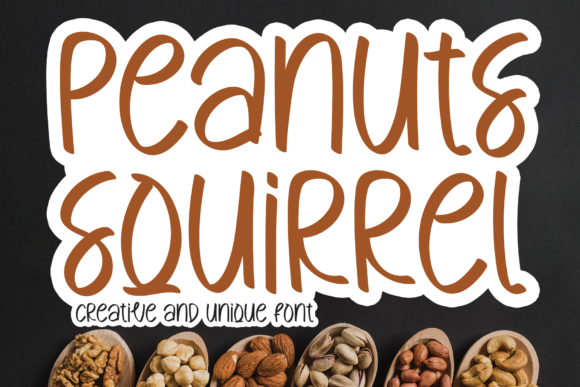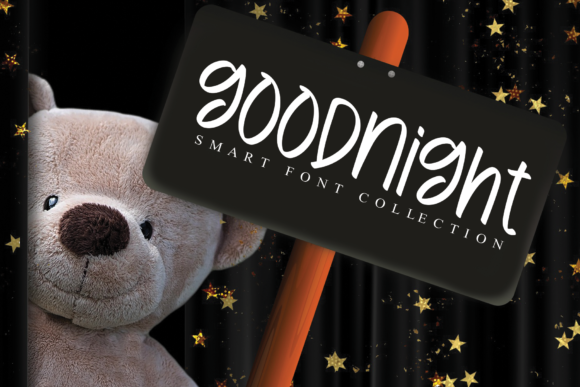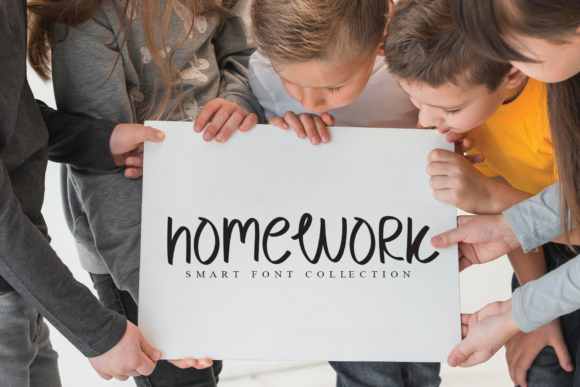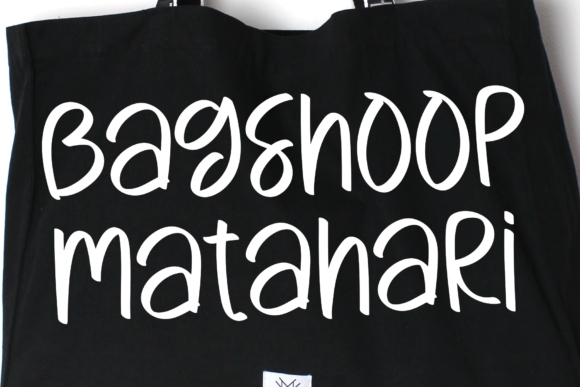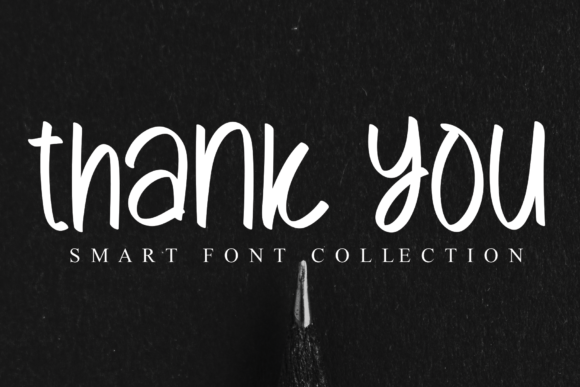
Peanuts Squirrel Font
About Peanuts Squirrel Font
Peanuts squirrel is a wonderful script font carefully crafted to perfection! It is made to enhance the look of wall displays, wedding invitations, social media posts, logos, advertisements, product packaging, product designs, labels, photography, watermarks, invitations, stationery, and any project that requires taste handwriting.